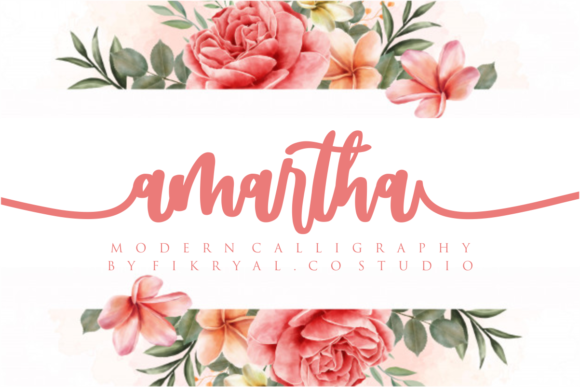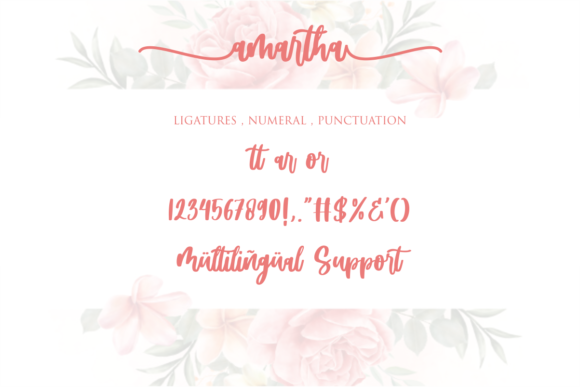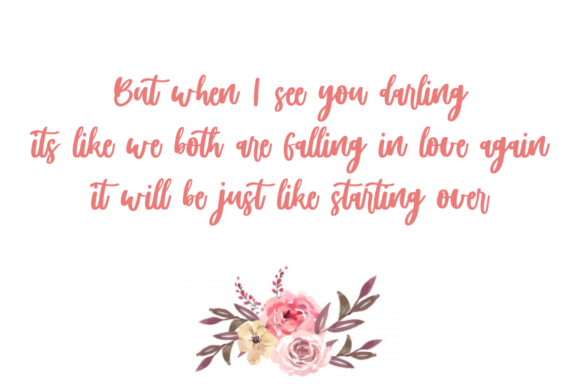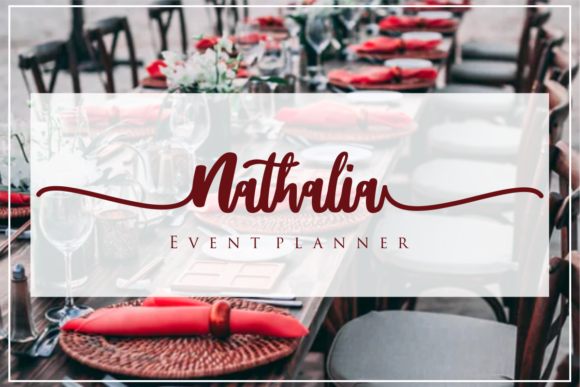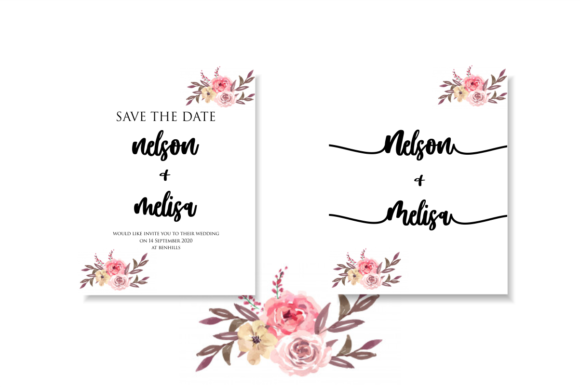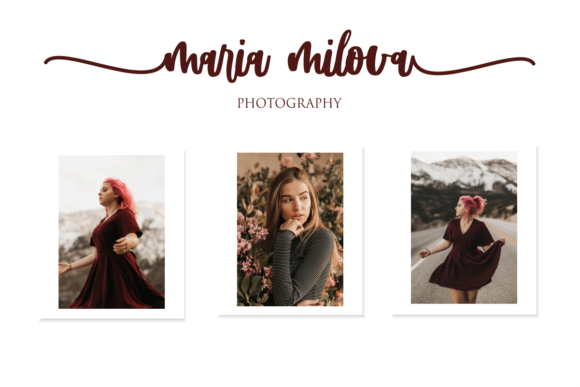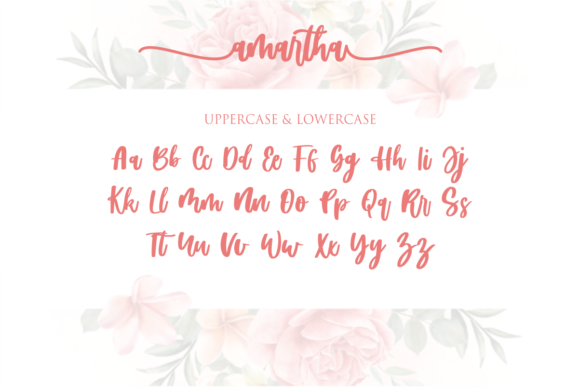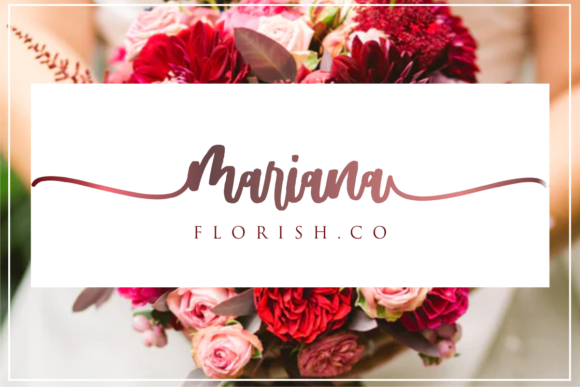
Amartha Font
About Amartha Font
Amartha is indeed a modern calligraphy script font that exudes elegance and sophistication. Its carefully crafted design sets it apart, making it an exceptional choice for creating original and outstanding designs.
One of the standout features of Amartha is its varying baseline, which adds a touch of dynamism and liveliness to the characters. This unique aspect creates a natural and organic flow, giving the font a sense of movement and grace.
The smooth lines of Amartha further enhance its beauty, contributing to a seamless and polished appearance. Each stroke of the font is meticulously crafted, ensuring a harmonious and visually appealing result.
Gorgeous glyphs and stunning alternates are also among the font’s highlights. These additional characters and variations allow for greater versatility, making Amartha suitable for a wide range of design projects. Whether you’re working on wedding invitations, branding materials, social media graphics, or any other creative endeavor, Amartha will elevate your designs to a whole new level of elegance.
The calligraphic influences in Amartha give it a touch of classic beauty, while its modern elements keep it fresh and contemporary. This delicate balance makes Amartha a timeless font that will remain relevant for years to come.
With Amartha as your font of choice, your designs will radiate originality and creativity. Its captivating style and stunning details will leave a lasting impression on anyone who encounters your work.
In conclusion, Amartha is a modern calligraphy script font that boasts a varying baseline, smooth lines, gorgeous glyphs, and stunning alternates. Its ability to create original and outstanding designs is unmatched, making it the perfect choice for designers who seek a font that exudes elegance and sophistication. Whether it’s for formal or casual projects, Amartha will add a touch of grace and beauty, setting your designs apart from the rest. Embrace the beauty of Amartha and unleash your creativity to craft breathtaking and captivating designs that truly stand out.